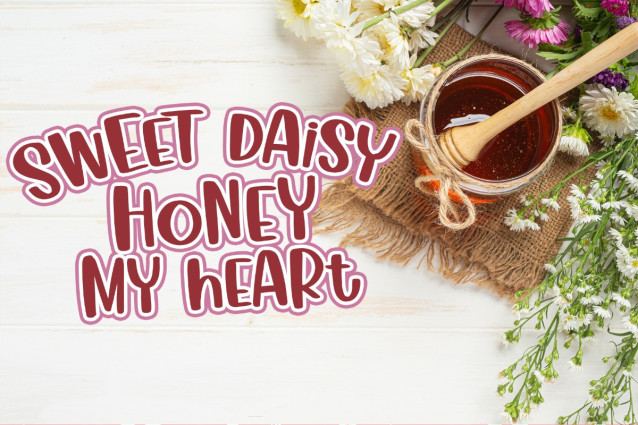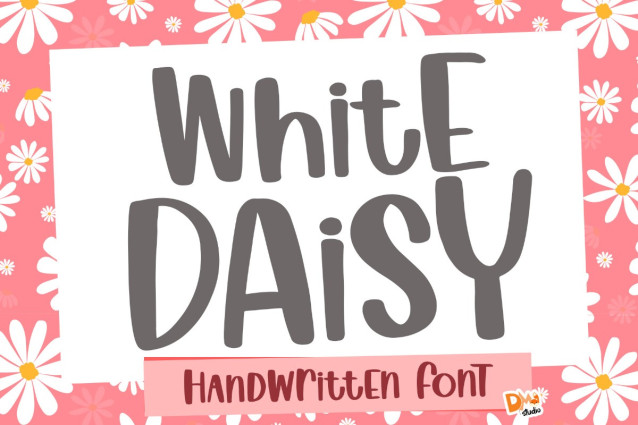
White Daisy Font
White Daisy Font is a graceful and versatile typeface inspired by the delicate beauty of daisies. With its clean lines and elegant curves, this font adds a touch of sophistication to your design projects, making it perfect for invitations, branding, packaging, and more.